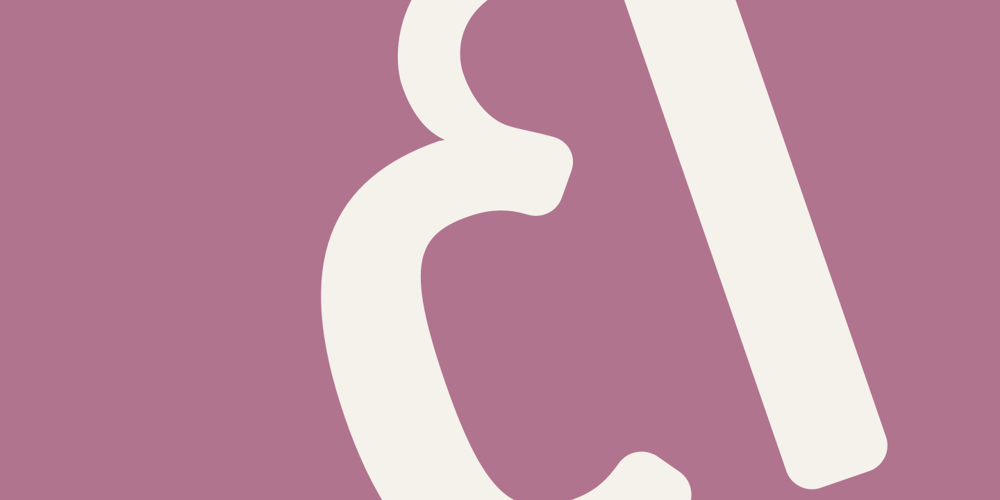
FF Unit Rounded Font Family was designed by Christian Schwartz, Erik Spiekermann and published by FontFont. FF Unit Rounded contains 12 styles and family package options. German type designer Erik Spiekermann and American type designer Christian Schwartz created this display and sans FontFont in 2008. The family has 6 weights, ranging from Light to Ultra and is ideally suited for advertising and packaging, editorial and publishing, logo, branding and creative industries, poster and billboards as well as wayfinding and signage. FF Unit Rounded provides advanced typographical support with features such as ligatures, small capitals, alternate characters, case-sensitive forms, fractions, and super- and subscript characters. It comes with a complete range of figure set options – oldstyle and lining figures, each in tabular and proportional widths. This FontFont is a member of the FF Unit super family, which also includes FF Unit and FF Unit Slab.